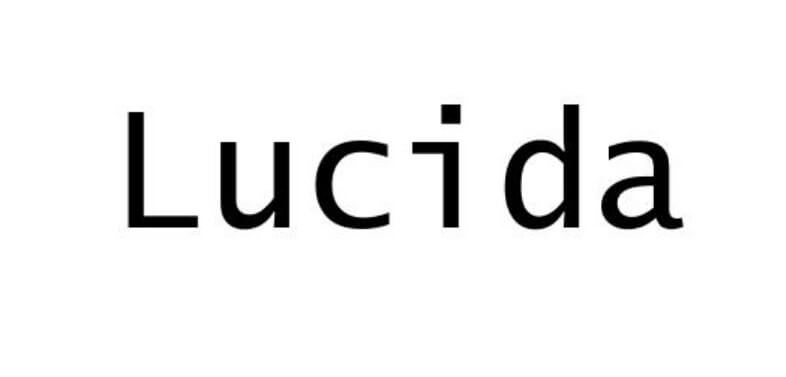
Lucida Sans regular font is a clean, attractive and perfect font for a blog, logo design, book composing and even for the printing purposes. This font here will show you the whole features and demo of Lucida sans and by just a single click you will be able to use this splendid font.
Lucida is a great contribution by Monotype font foundry. This TrueType font includes 242 glyphs, 1776 characters, and amazing texture which will help a reader to understand the things described. Moreover, it supports many languages other than English.